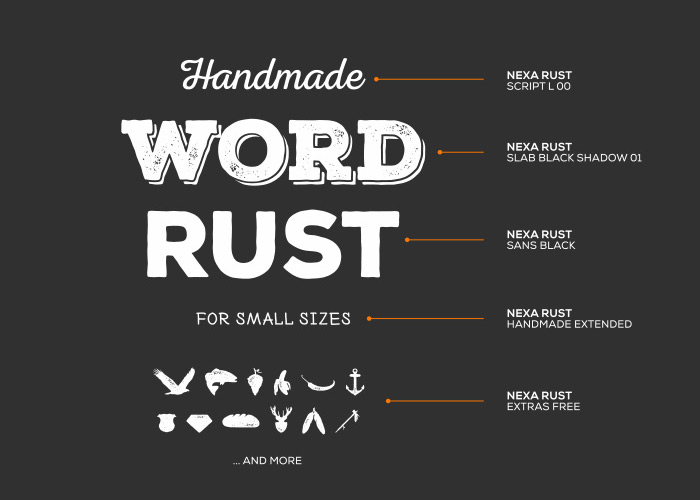
Nexa Rust Font Free Download. Download the full version consisting of 83 fonts. Black), 381 characters in total.
Dowonload this fonts for graphic design , web fonts. Black), 381 characters in total. You can use the nexa rust sans book to create interesting designs, covers, shop and store name and logos.
Nexa Rust Script L 0.
Nexa Rust Font Family Features.
Five (5) fonts from all 83 are available for free download. Also, the nexa rust sans book font is perfect for branding projects, housewares designs, product. Five (5) fonts from all 83 are available for free download.
Nexa rust was designed by svet simov, ani petrova, vasil stanev, radomir tinkov and published by fontfabric. Dowonload this fonts for graphic design , web fonts. Nexa rust handmade demo extended, nexa rust script l demo 1, nexa rust slab demo black shadow 1, nexa rust extras demo iconsm, nexa rust sans demo black.
Nexa Rust Contains 83 Styles And Family Package Options.
Nexa rust is a script type font that can be used on any device such as pc, mac, linux, ios and android. Be aware that the nexa rust sans book font is free for personal knowledge and use only. Also, the nexa rust extras free font is perfect for branding projects, housewares designs,.